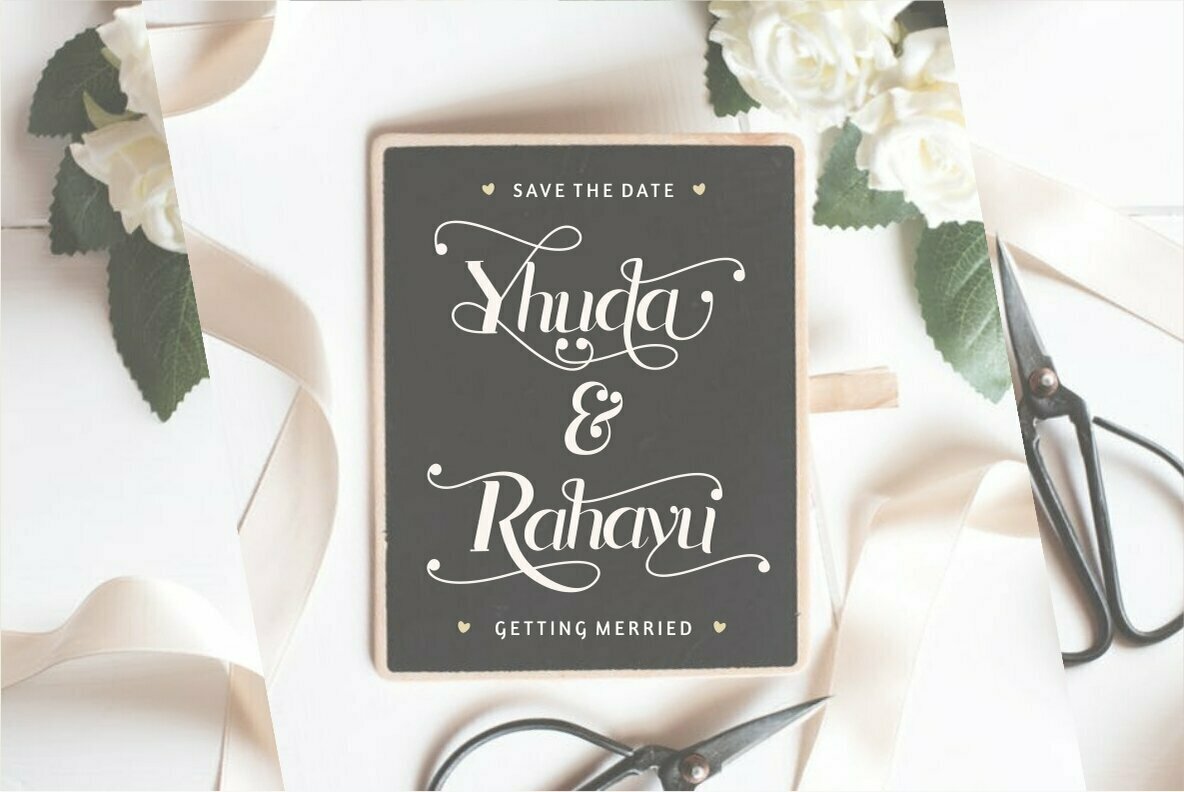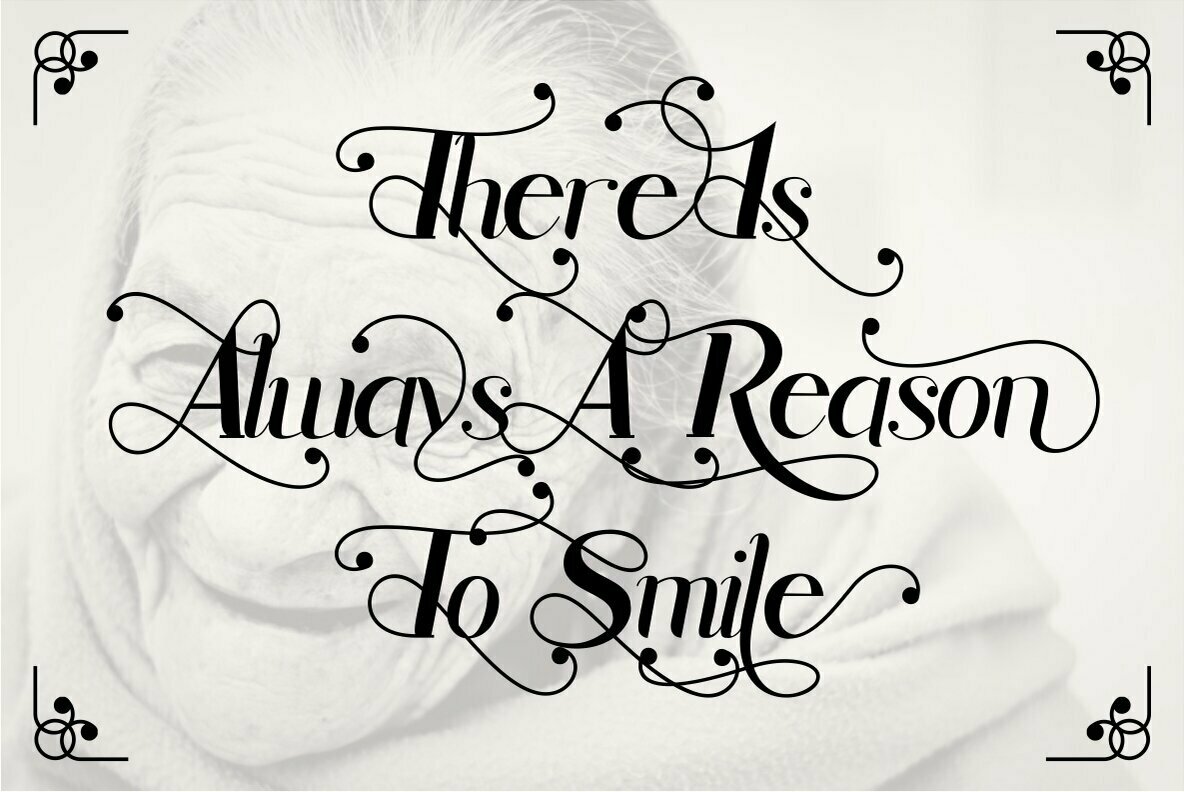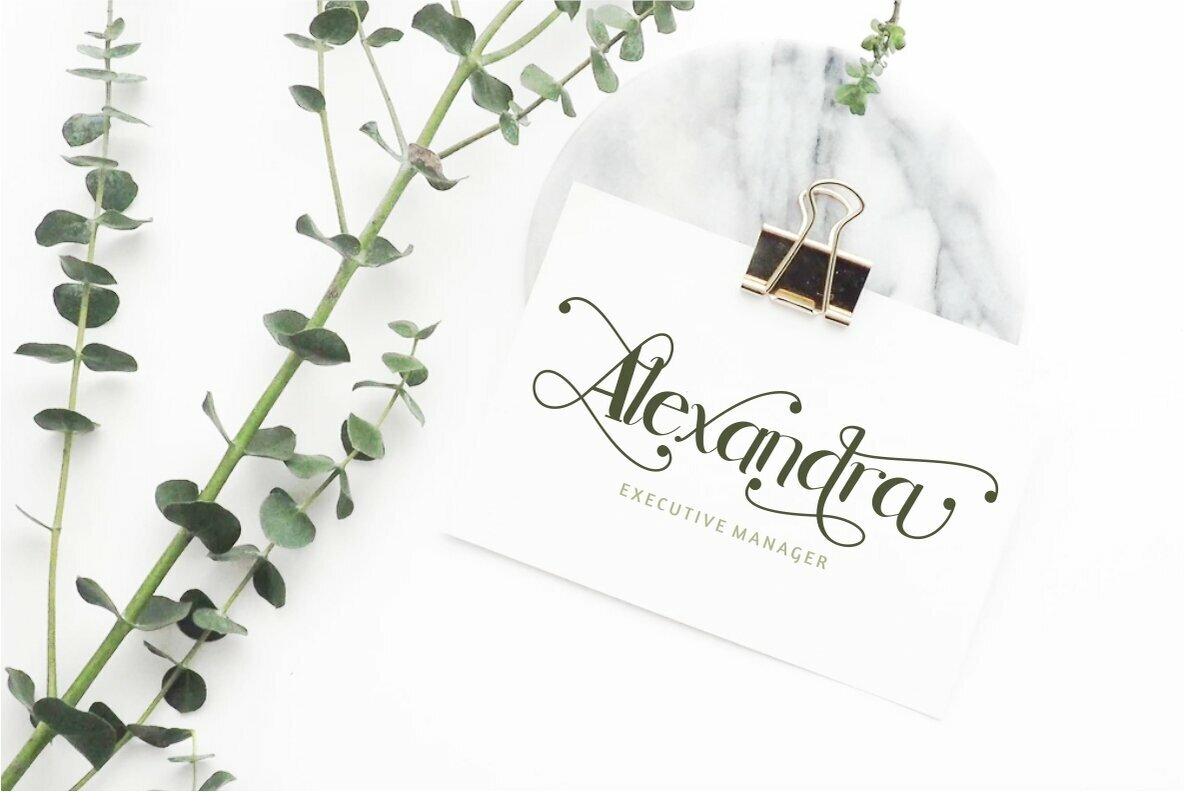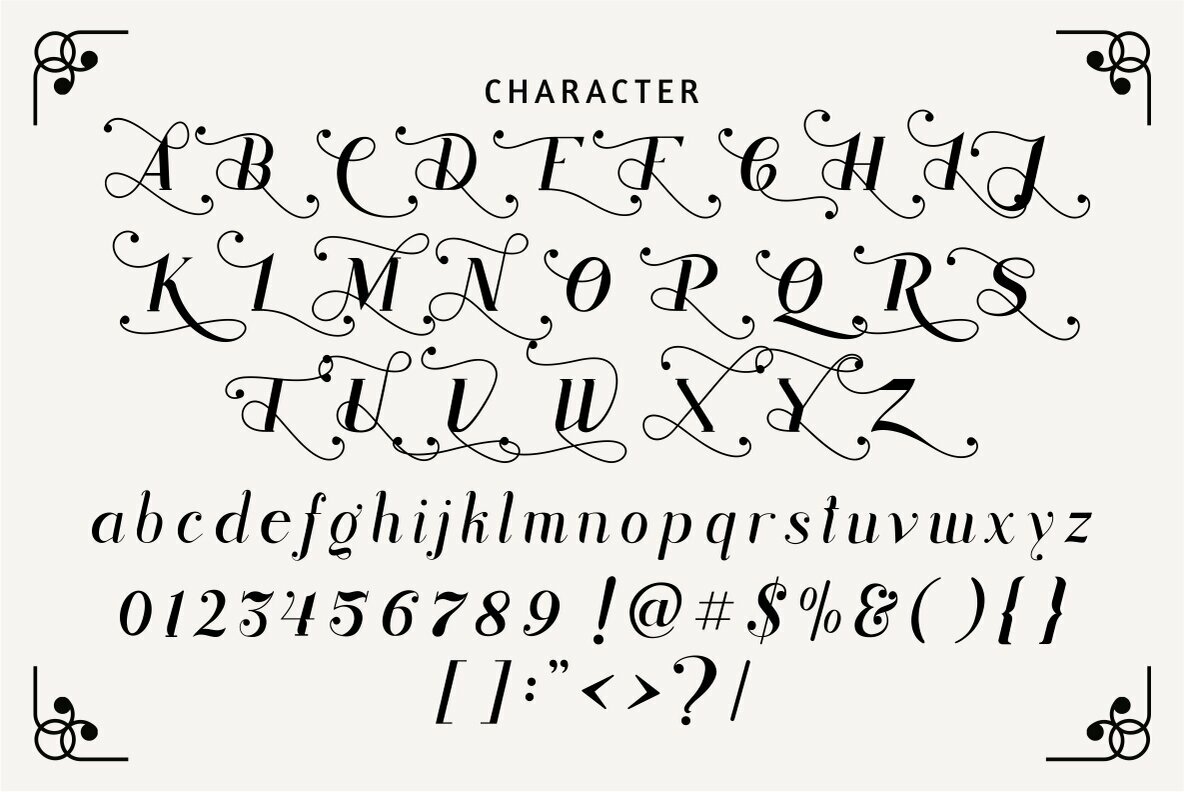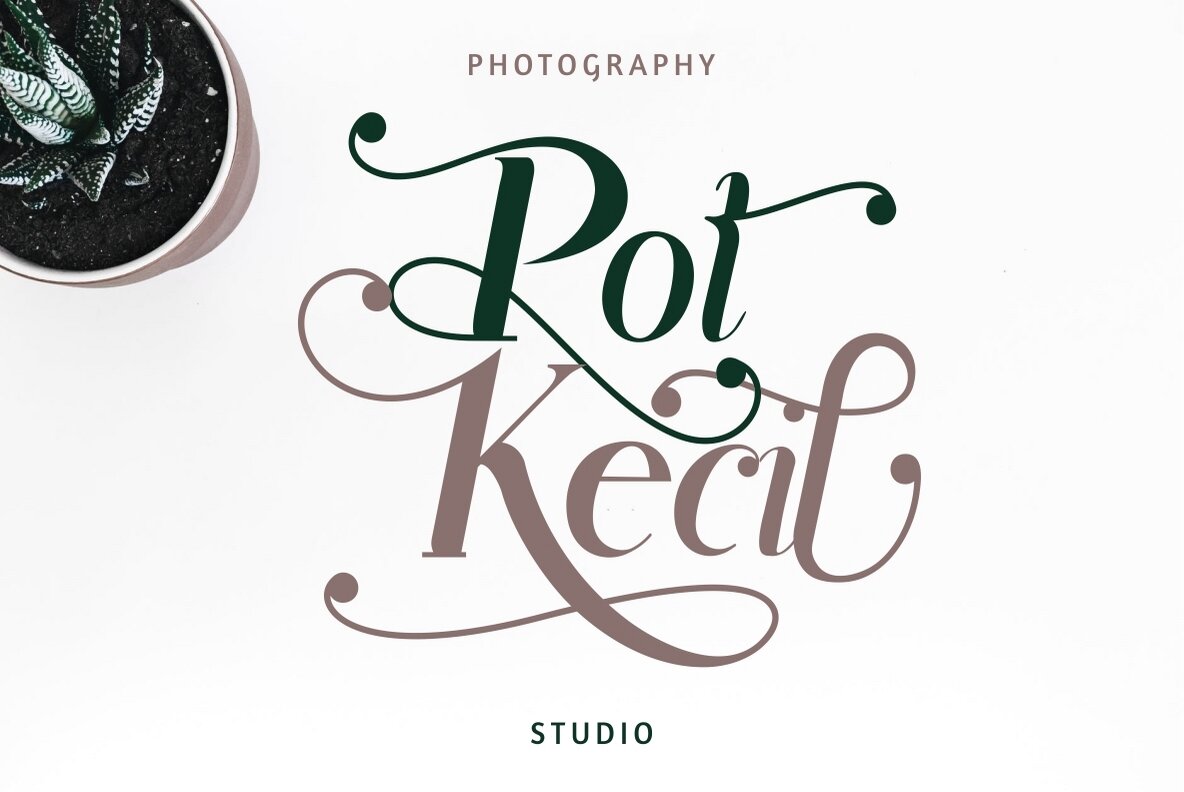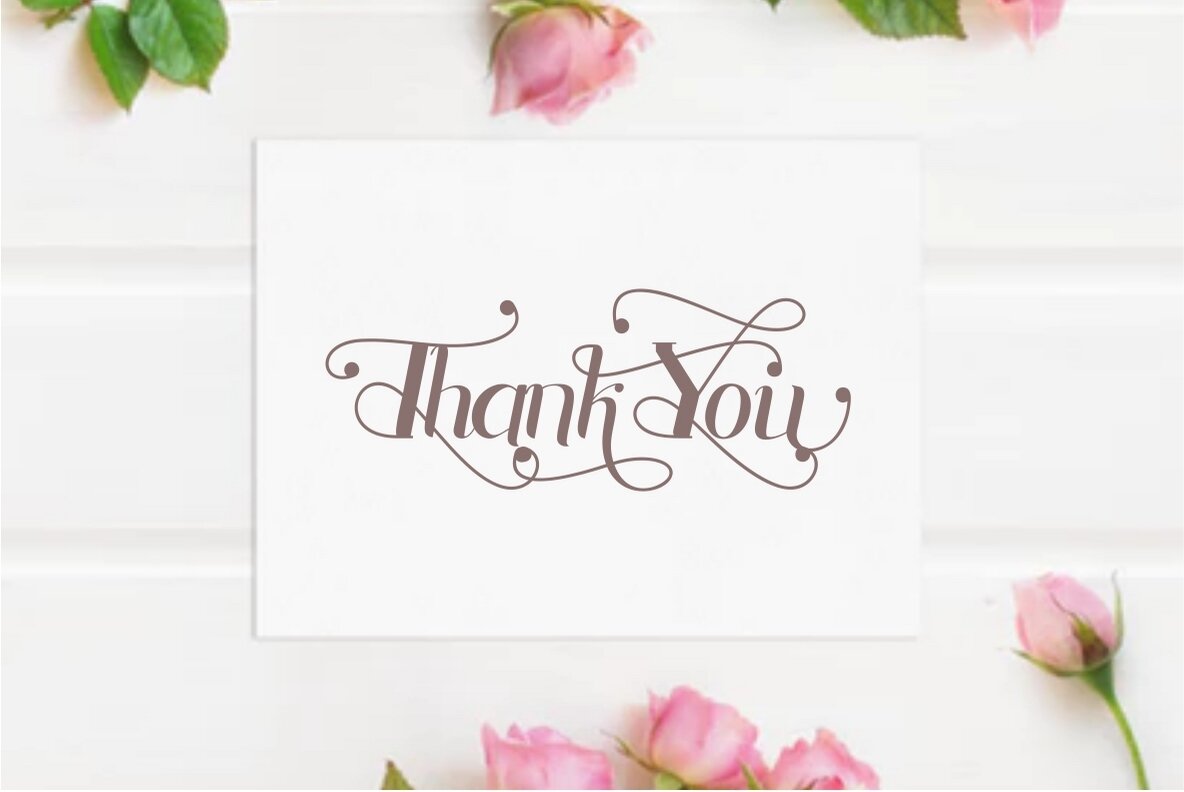
Rhonde Font
Rhonde
Rhonde blends modern style with classic elegance, offering a distinctive typeface for designers seeking versatility. With its comprehensive set of alternative uppercase and lowercase letters featuring expressive swashes, Rhonde empowers you to craft designs that stand out. Ideal for applications spanning from logos to product packaging, Rhonde is perfect for creating memorable headlines, taglines, and more. Its adaptability extends to merchandise, posters, and social media graphics, ensuring your projects leave a lasting impression.Rhonde: A Typeface for Unique, Elegant Designs